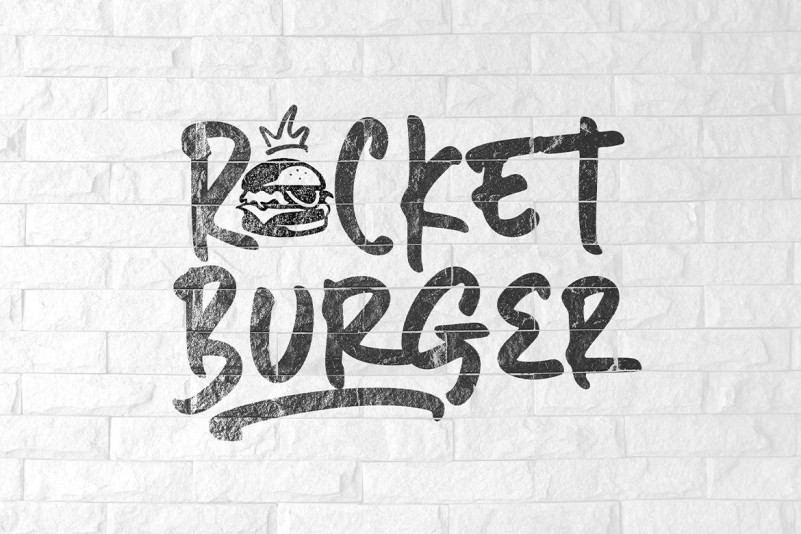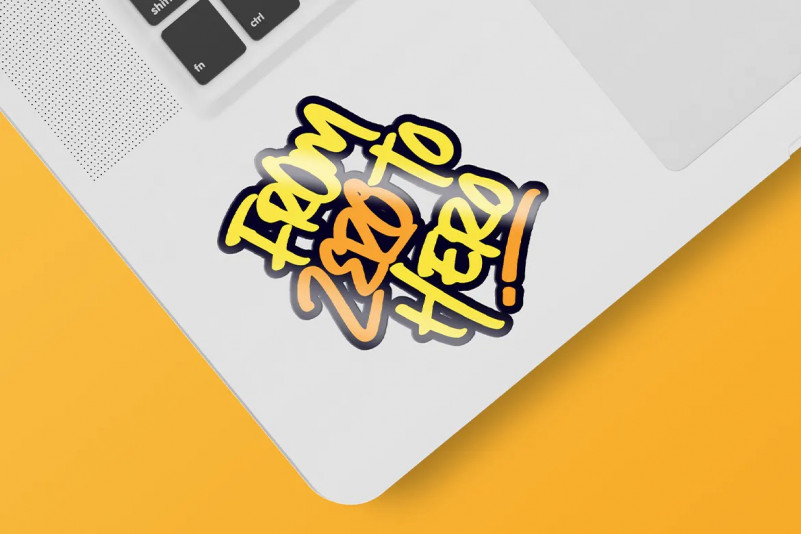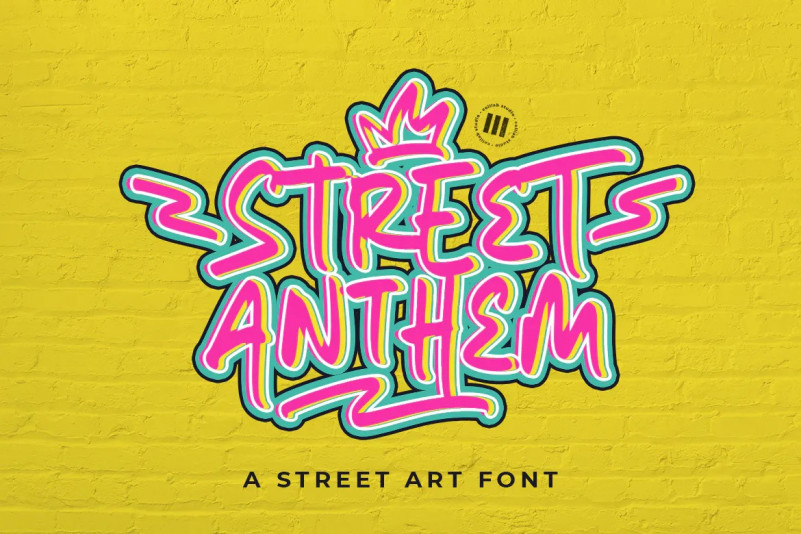
Street Anthem Font
Street Anthem is an urban font that is suitable for design projects; wild display, music, graffiti, adventure, playful theme, logo, branding, poster, quotes, display, eye-catching social media posts, and any other designs.